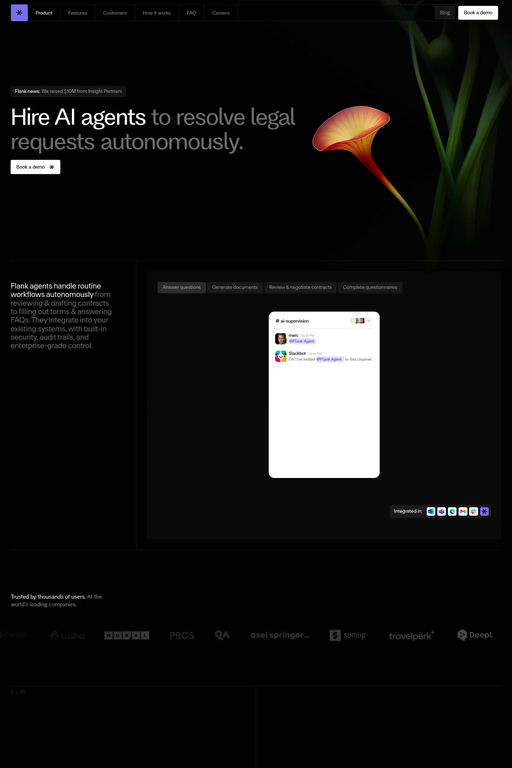
Solina is a sans-serif typeface from Good Type Foundry.
Solina is a modern, massive family of grotesque fonts from thin to heavy, condensed to extended with supporting Italics. A total of 60 fonts, made to cover all your typographic needs.